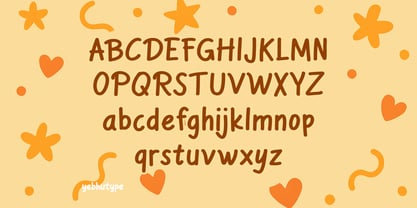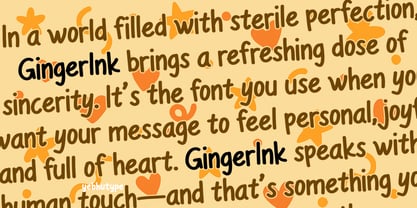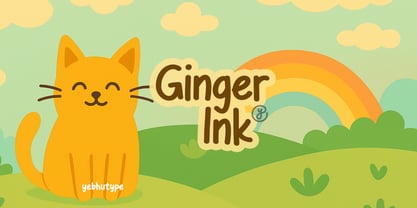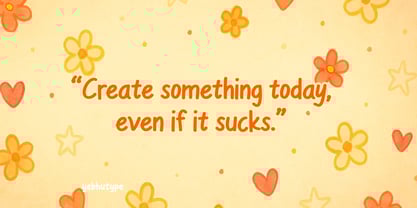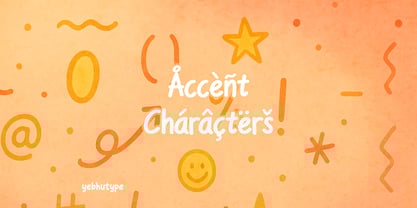
Ginger Ink
by Yebhu
GingerInk: Handwritten Warmth for Creative Souls
Say hello to GingerInk, a charming handwritten typeface that radiates friendliness, fun, and a personal touch. With bold yet soft strokes and a casual flow, GingerInk captures the essence of handwritten notes, doodled ideas, and heartfelt creativity. It’s more than a font—it’s a warm, joyful presence in every design.
The Spirit of GingerInk
GingerInk is a celebration of authenticity and human connection. Inspired by the spontaneous, relaxed energy of everyday handwriting, it brings a natural, approachable tone to your creative projects. Whether you’re designing playful content or cozy branding, GingerInk wraps your message in a smile.
It’s like a handwritten hello—a little imperfect, deeply sincere, and full of character.
Key Features
🖊️ Natural Handwritten Feel
GingerInk is full of personality, mimicking the ease and rhythm of real handwriting with a confident, flowing style.
😊 Rounded, Friendly Letterforms
Each letter is crafted with soft curves and gentle lines, giving your text a friendly, down-to-earth feel.
🎈 Playful and Expressive
GingerInk’s subtle quirks make every word feel lively and genuine—perfect for communicating with heart.
📐 Clear and Readable
Despite its casual vibe, GingerInk remains highly legible at various sizes, making it perfect for headlines, quotes, or even small text.
🔡 Complete Character Set
Includes uppercase, lowercase, numbers, and essential punctuation for seamless typography across projects.
🌈 Mood & Personality
GingerInk is warm, spirited, and inviting. It’s the kind of font that makes you feel like you're reading a friendly note from someone who really cares. Whether you're crafting cheerful captions or heartfelt greetings, GingerInk brings an emotional and approachable vibe that truly resonates.
💡 Perfect For:
📘 Children’s Books & Storytelling
Bring warmth and whimsy to kids’ titles, character dialogue, or playful narratives.
🎉 Event Invitations & Cards
Make birthdays, baby showers, or special occasions feel more personal with a handwritten touch.
👪 Family & Lifestyle Branding
Perfect for toy shops, parenting content, and cozy product lines that value connection and trust.
📱 Social Media Graphics
Stand out on the feed with friendly, engaging lettering that feels natural and welcoming.
🧷 DIY & Craft Projects
Great for planners, stickers, scrapbooks, journals—anything that calls for creativity and charm.
💖 Why Choose GingerInk?
In a world filled with sterile perfection, GingerInk brings a refreshing dose of sincerity. It’s the font you use when you want your message to feel personal, joyful, and full of heart. GingerInk speaks with a human touch—and that’s something your audience will feel instantly.
Let Your Words Smile
With GingerInk, every word feels like a warm hug—a font that listens, laughs, and brings stories to life.
P.S. GingerInk isn’t just a font—it’s a personality. A playful friend. A handwritten hug. And it’s ready to join your next big idea.